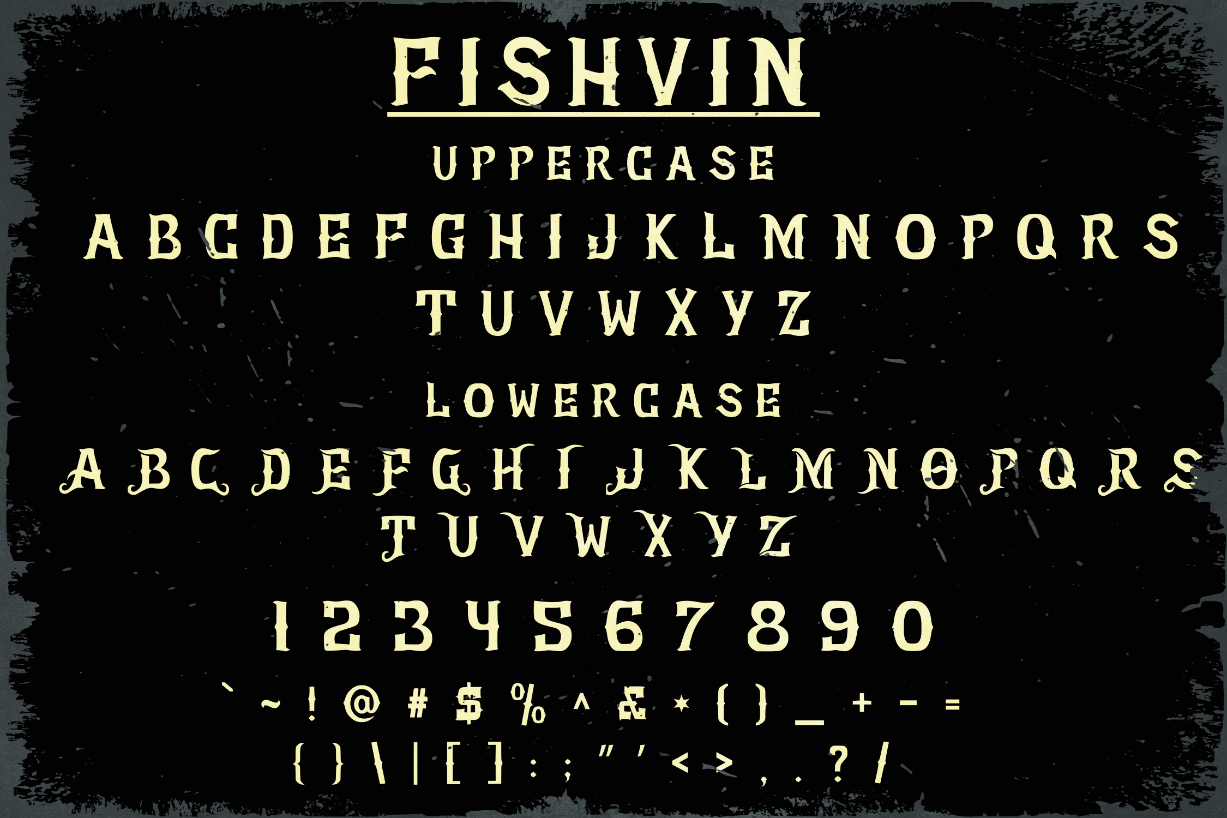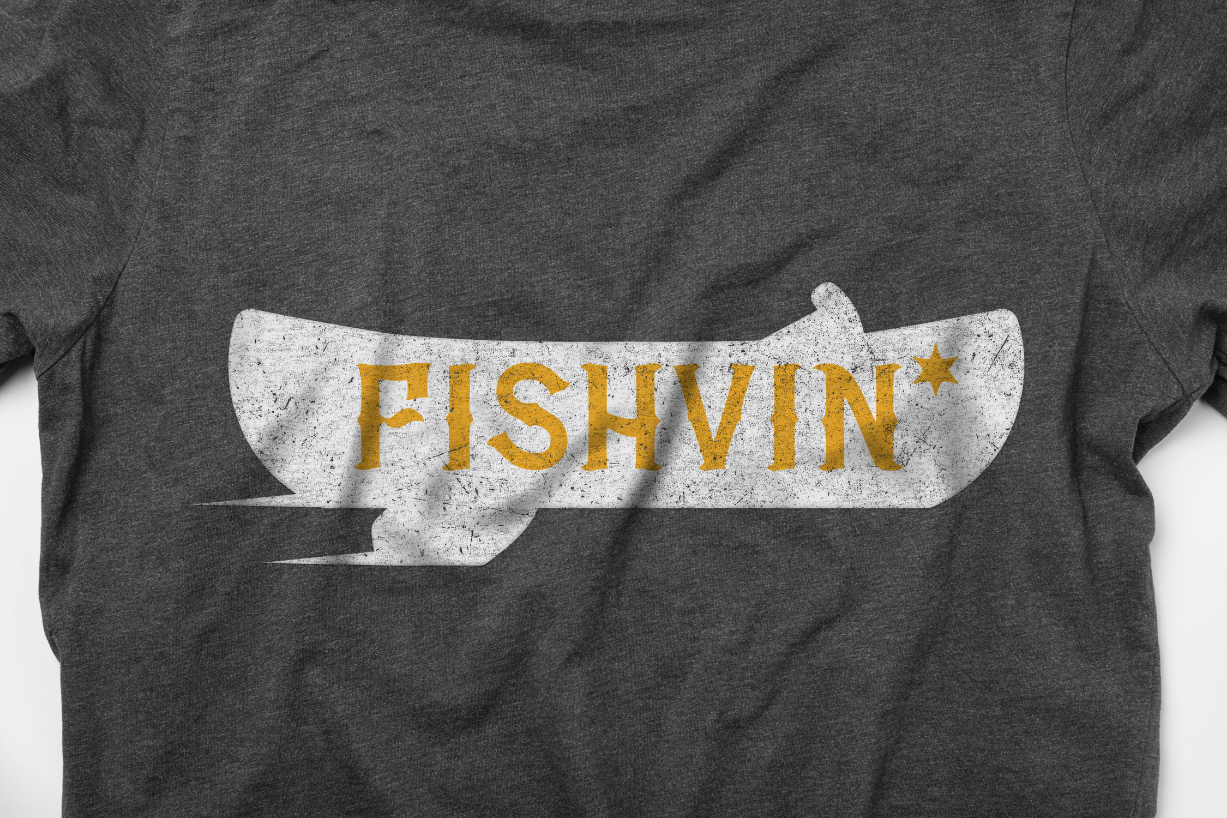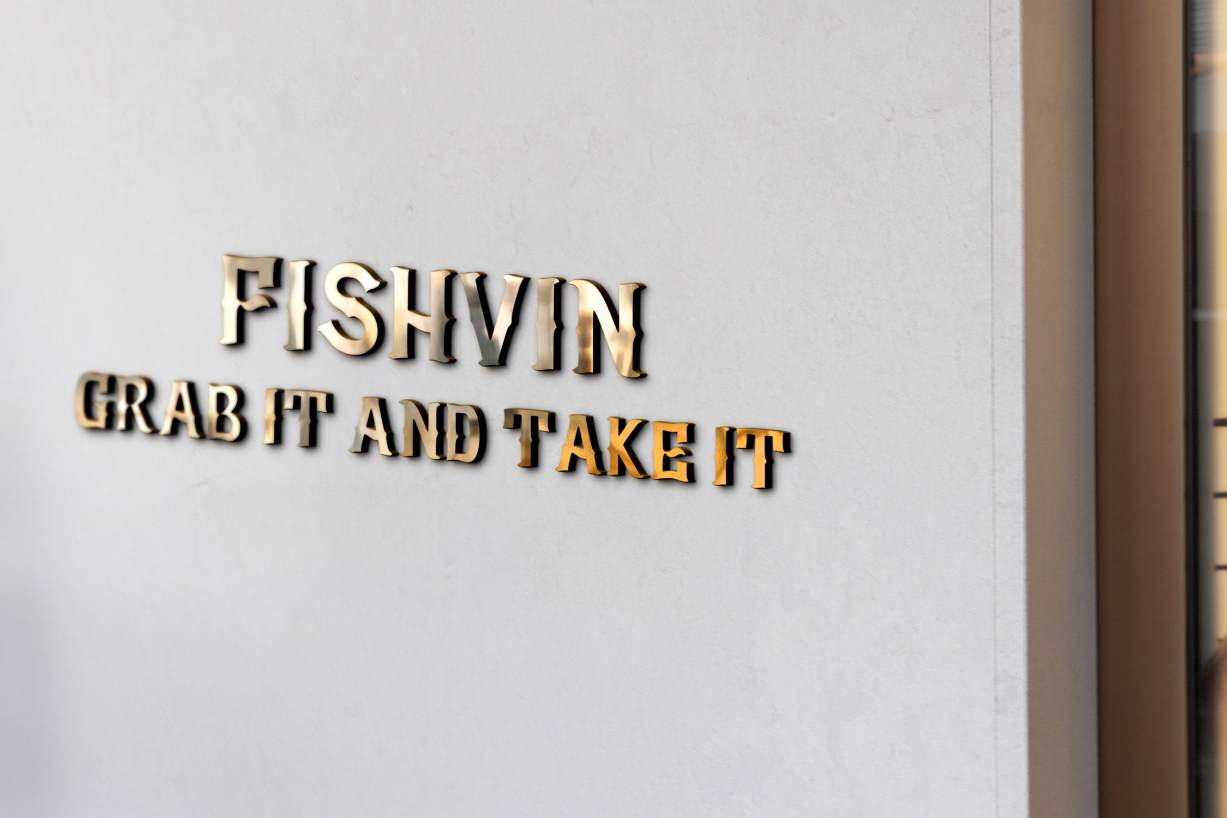
About Fishvin Font
Fishvin is a classic, bold and thick lettered blackletter font. It looks great on magazine covers, labels, branding, ads and much more. The only limit is your imagination.